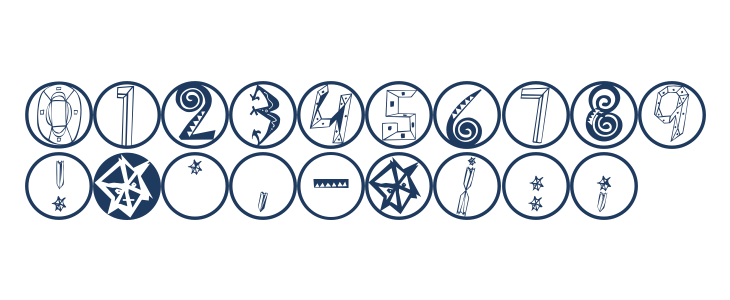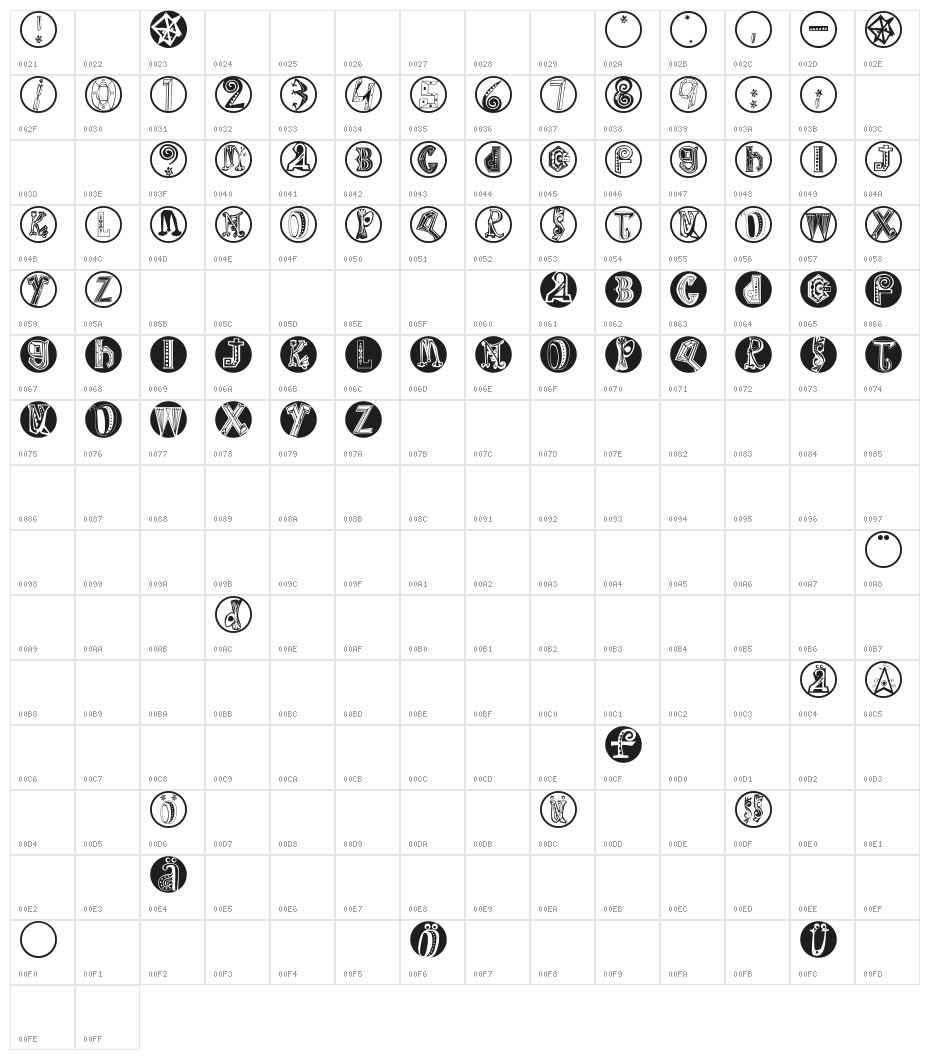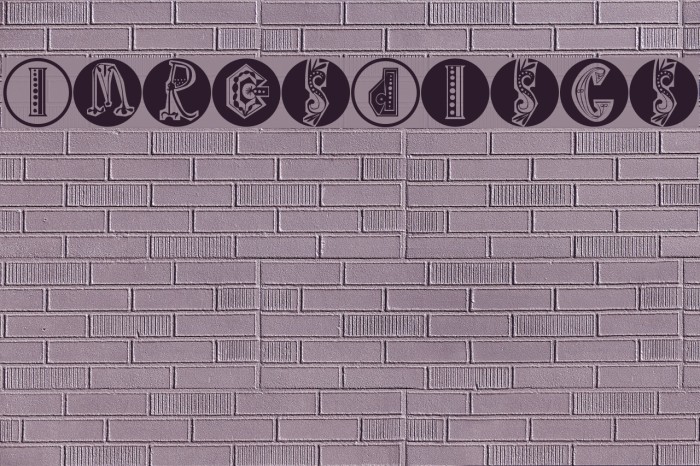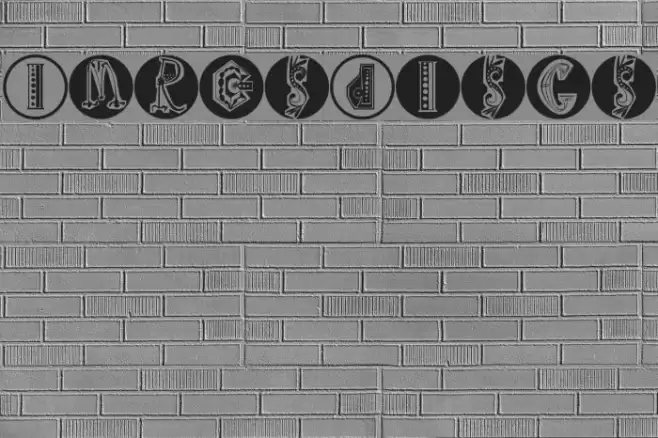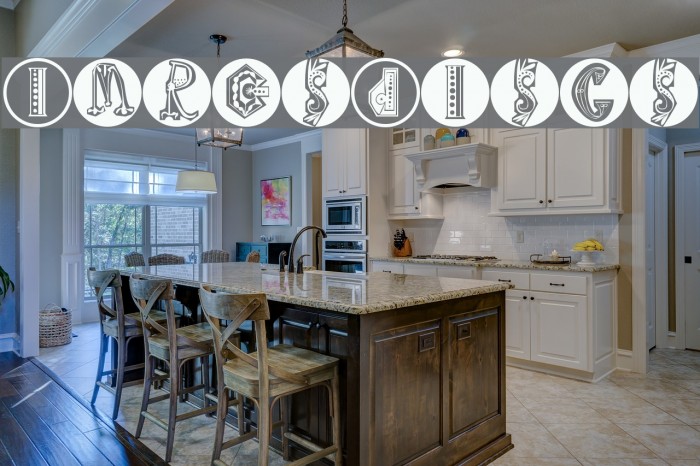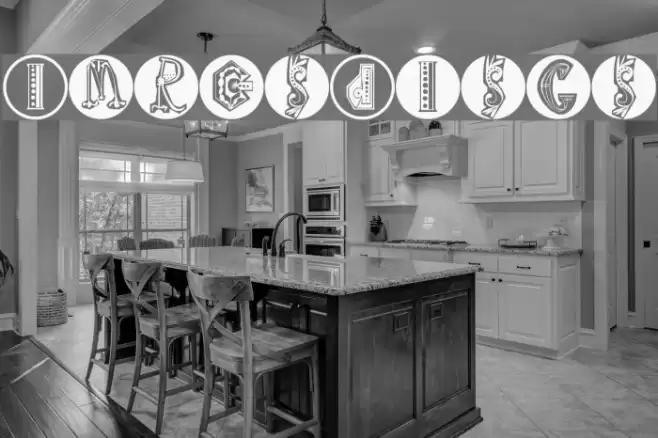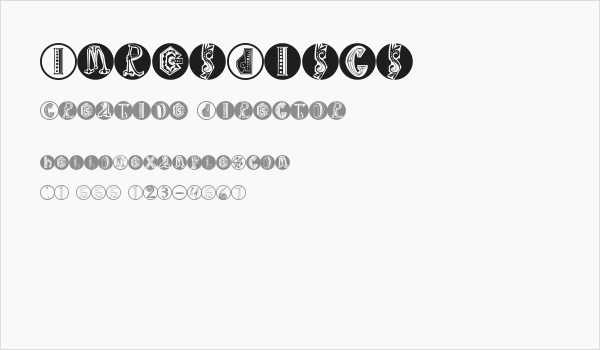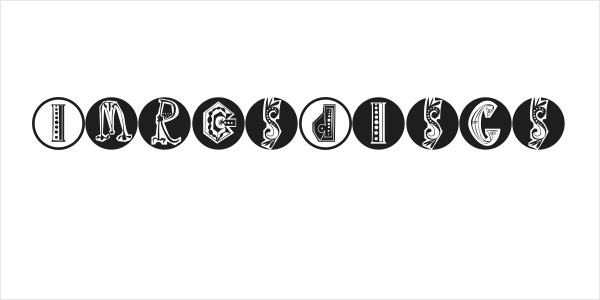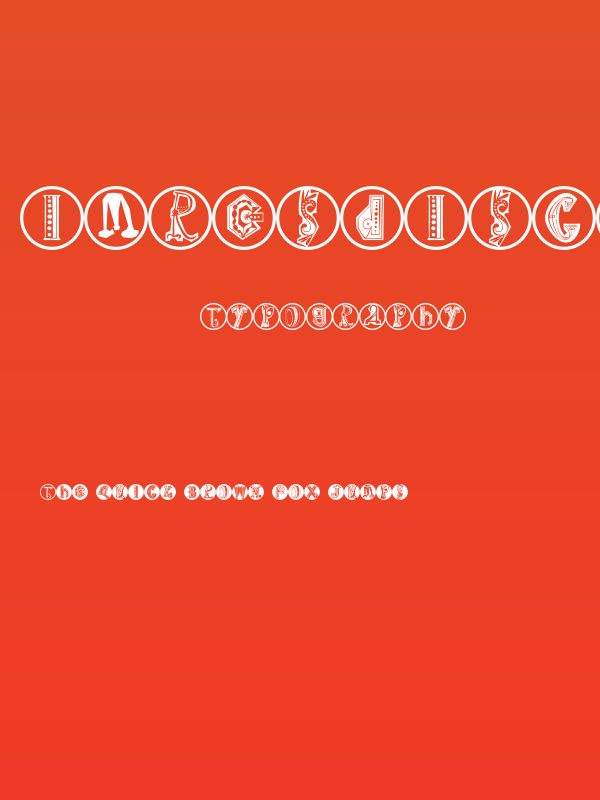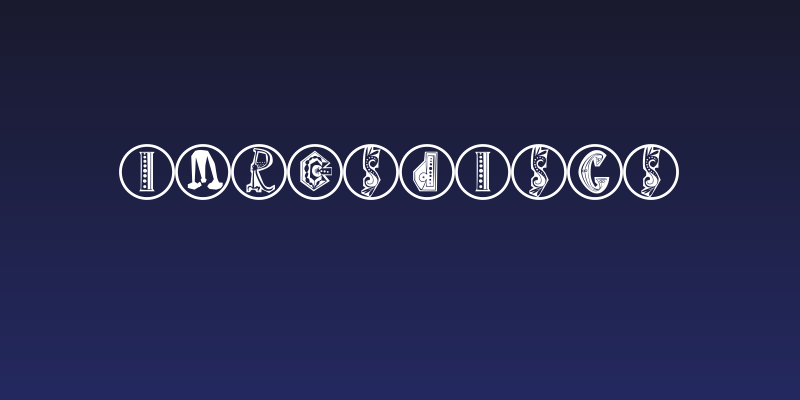
ImresDiscs Font
ImresDiscs Description
This font features a unique and playful design, with each character enclosed within a circular disc. The letters and numbers are highly decorative, incorporating various artistic elements such as stripes, dots, and geometric shapes. The style is reminiscent of a vintage circus or carnival theme, with a whimsical and eye-catching appearance. The characters are bold and stand out against the black background of the discs, making them suitable for attention-grabbing designs. The font includes both uppercase and lowercase letters, numerals, and a selection of special characters, each with its own distinct flair.
| Overall Style | Vintage, Decorative |
| Proposed Projects | This font is perfect for projects that require a fun and engaging aesthetic, such as children's book covers, party invitations, event posters, and themed branding materials. |